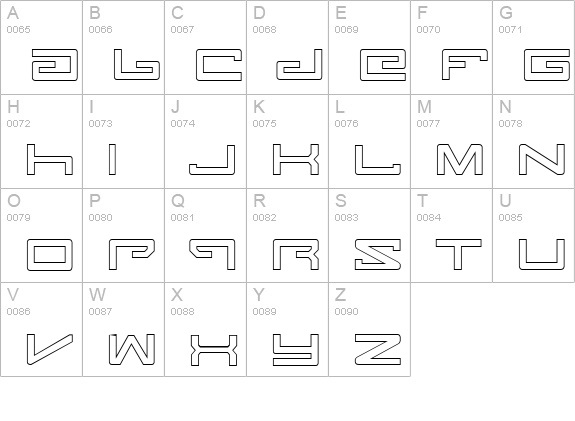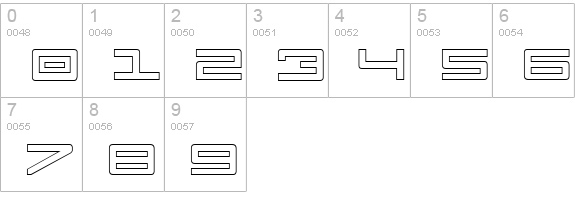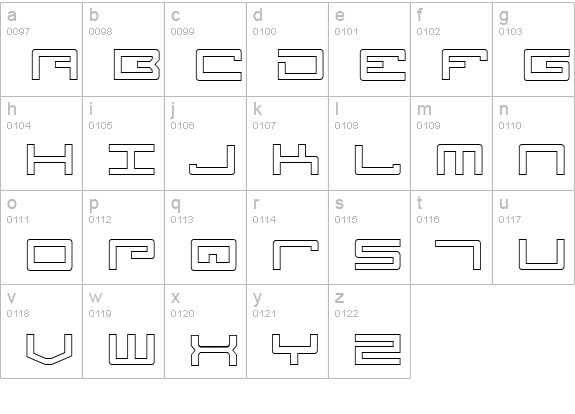
Legion Outline Font Details
Legion Outline is a captivating and versatile font that is sure to make a lasting impression. Its unique and edgy design pays homage to the strength and unity of a powerful legion. With its bold and striking outlines, this font demands attention and commands respect. Legion Outline is perfect for a wide range of design projects, whether it be for headlines, logos, posters, or even branding materials. Its strong and commanding presence adds a touch of authority and professionalism to any piece of work. This font effortlessly captures the essence of power and determination, making it an ideal choice for projects that require a bold statement. One of the best features of Legion Outline is that it is completely free! Yes, you read that right. This remarkable font is freely available to download at FontsMarket.com. Now you can add this incredible font to your collection without spending a dime. So why wait? Download Legion Outline today and unleash the power of this captivating font in your designs. Take advantage of its versatile nature and create designs that leave a lasting impact. With Legion Outline, the possibilities are endless, and the results are guaranteed to be extraordinary.